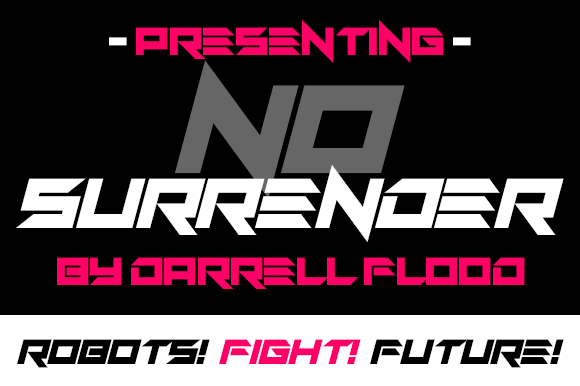
No Surrender Font
Dive into the captivating world of No Surrender Font, a display font that exudes power, boldness, and modernity. This masterpiece from the creative mind of Dadiomouse is the ultimate choice for web designers, graphic artists, and anyone seeking a font that commands attention and makes a lasting impact.
Embark on a journey to the outer limits of creativity with No Surrender Font, a display font that captures the essence of space exploration and technological wonders. Its thick, robotic letters evoke a sense of adventure and innovation, inviting you to push the boundaries of design and create captivating visuals.
Unleash the power of No Surrender Font and witness the transformation of your designs. It's the key to unlocking a world of possibilities, from eye-catching web designs that leave a lasting impression to business cards that demand a second look. No Surrender Font is the perfect choice for those who dare to be different and leave their mark on the world of design.
With No Surrender Font, you're not just downloading a font; you're acquiring a tool that will redefine your creative process. Its versatility knows no bounds, adapting seamlessly to any design project that requires a touch of futurism and boldness. Unleash your imagination and transcend the ordinary with No Surrender Font.
No Surrender Font is more than just a font; it's a statement of individuality, a reflection of your unique style. It's a font that speaks volumes without uttering a single word. Embrace the power of No Surrender Font and watch as your designs take on a life of their own, captivating audiences and leaving an indelible mark on their minds.
Don't settle for ordinary fonts; choose No Surrender Font and embark on a creative journey that will redefine your design capabilities. Its bold presence and futuristic charm will elevate your projects to new heights, leaving your audience in awe. Embrace the No Surrender spirit and let your creativity soar.